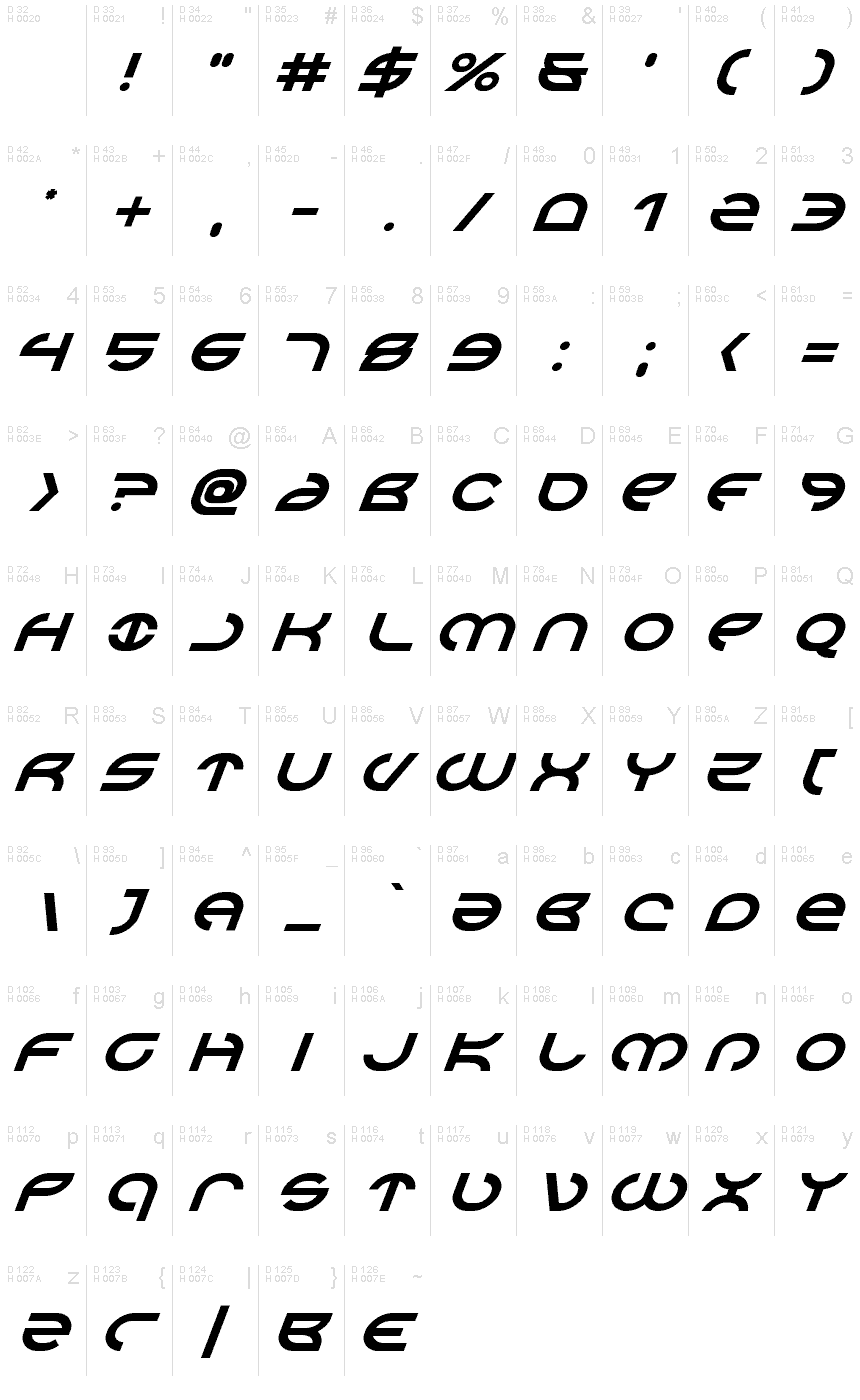
Aetherfox Super-Italic
Aetherfox Super-Italic font is a futuristic typeface designed by Iconian Fonts. Its diagonally inclined letters have a streamlined appearance with influences of geometric shapes creating a sleek and minimalist design. With the expanded width, this modern display font covers enough space where it is found, making its digital appearance stand out in every way.
Enjoy using this free futuristic font by combining its characters for titles, headers, posters, various banners, social media channels backgrounds, advertisements and public signage. If you’re creating movies or video games with technology-related topics or set in the future – enjoy implementing Aetherfox into them as well!